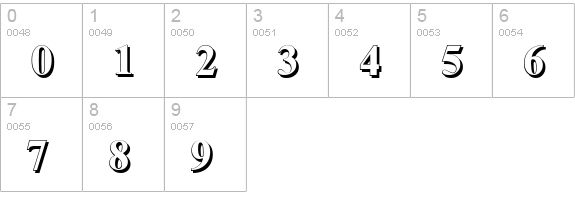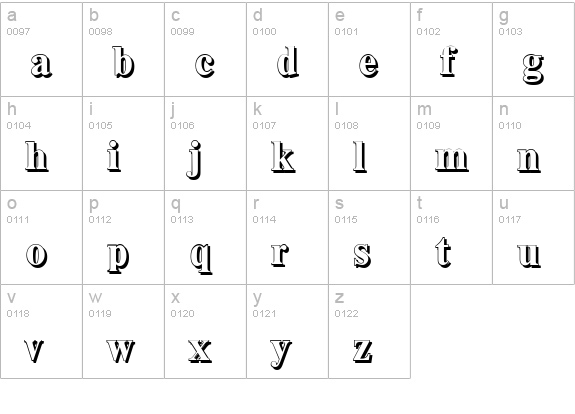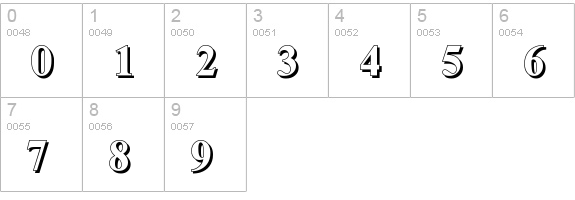
ThamesShadow-Bold is a strong, high-contrast variant in the ThamesShadow typeface family \xE2\x80\x94 well suited to headlines, attention-grabbing titles, and strong calls-to-action.
ThamesShadow-Bold is a striking and bold typeface that exudes elegance and sophistication. Its unique shadow effect adds depth and dimension to any design project, making it perfect for eye-catching headlines, posters, and branding materials. The strong and commanding presence of ThamesShadow-Bold makes it a versatile choice for both digital and print applications. Best of all, ThamesShadow-Bold is available for free download at FontsMarket.com. This means you can easily access this stunning font and incorporate it into your creative projects without any cost. Don't miss out on this opportunity to enhance your designs with the timeless appeal of ThamesShadow-Bold. Download it now and let your creativity shine!